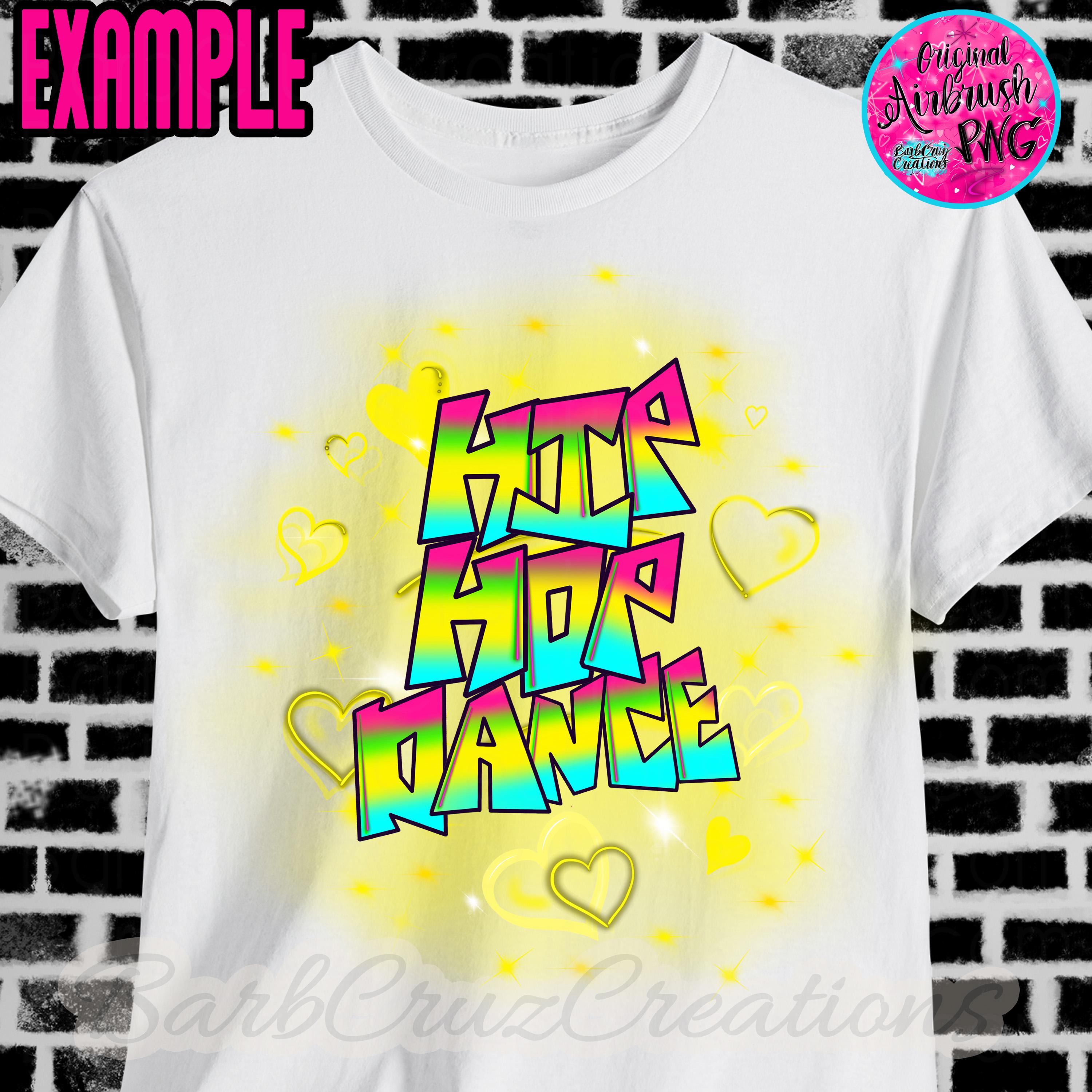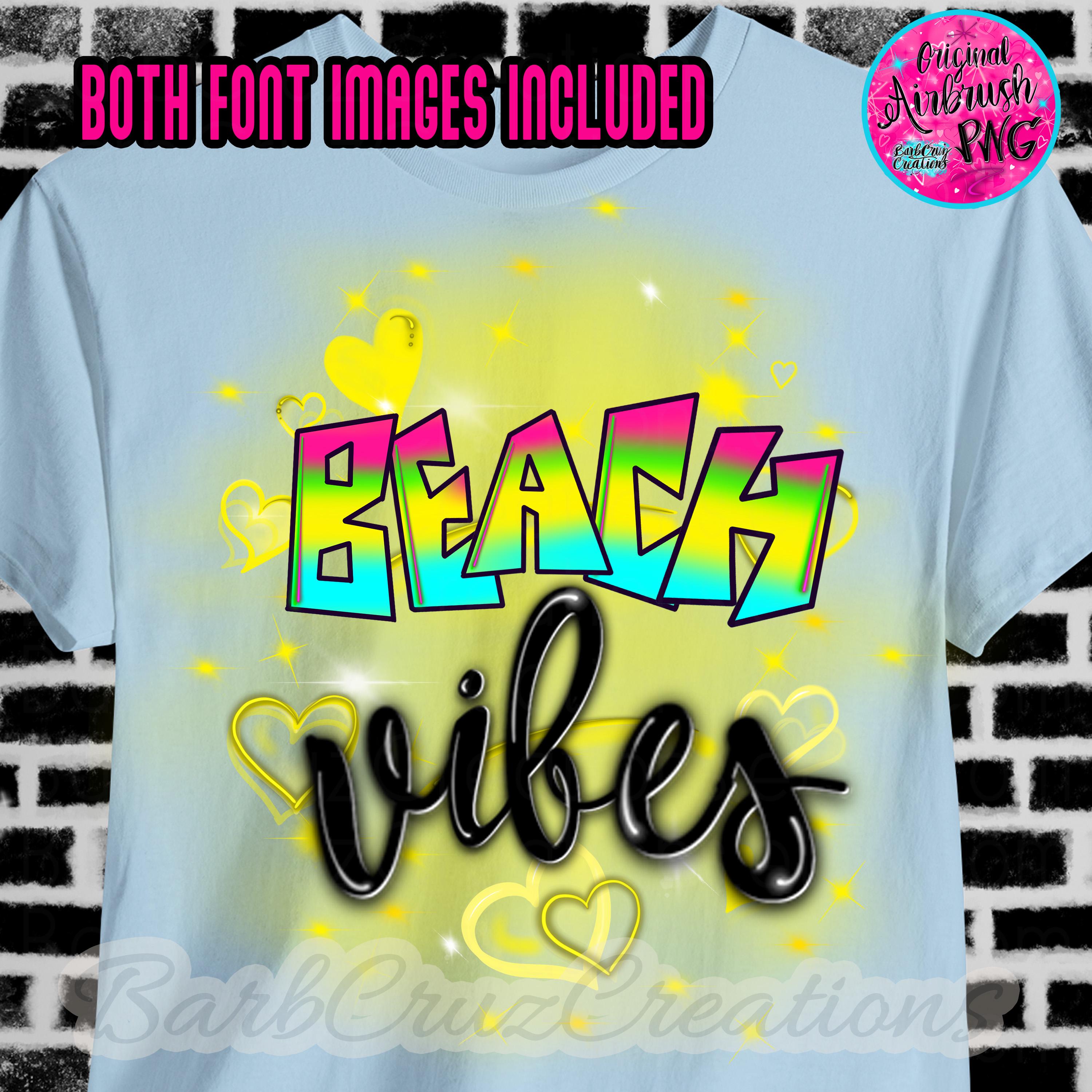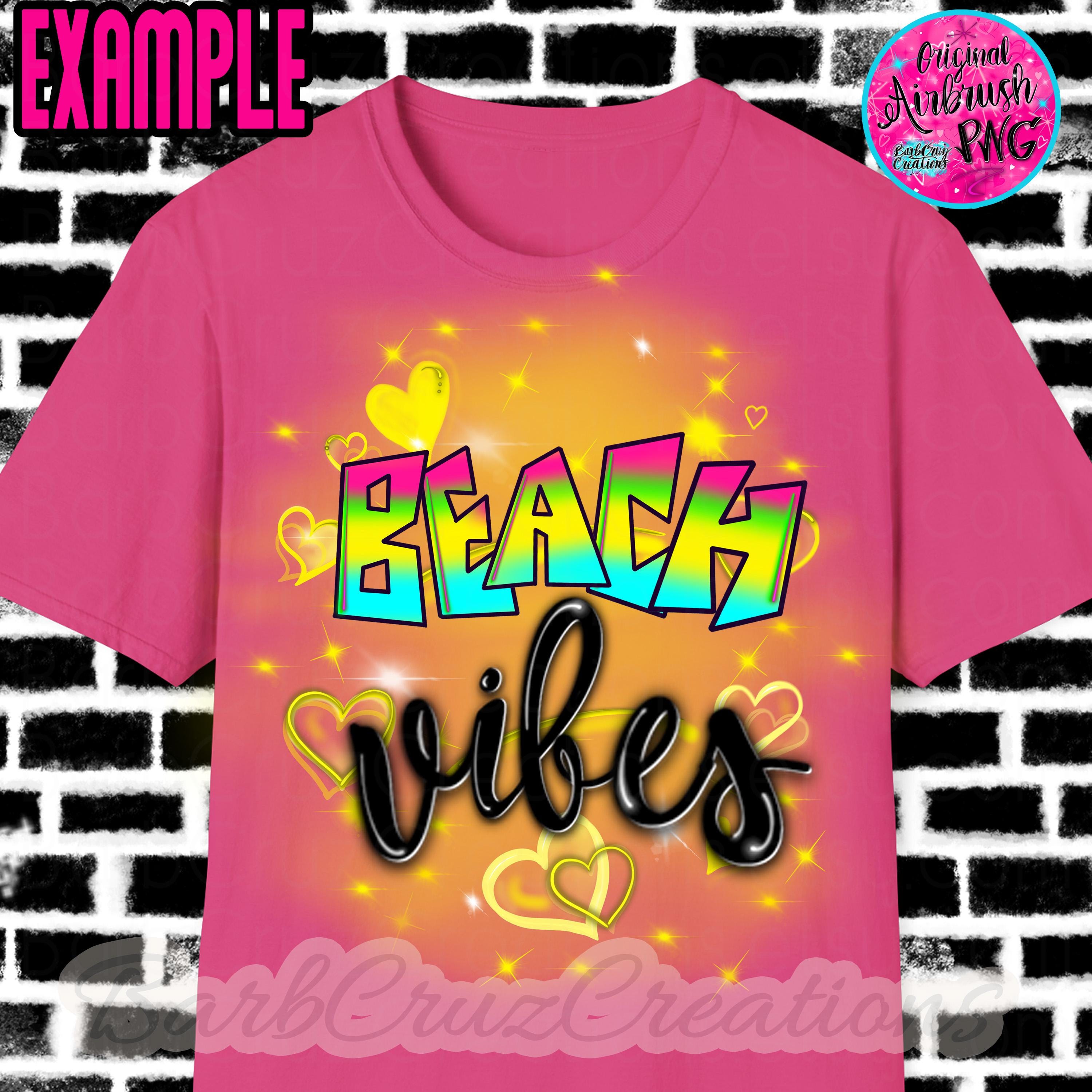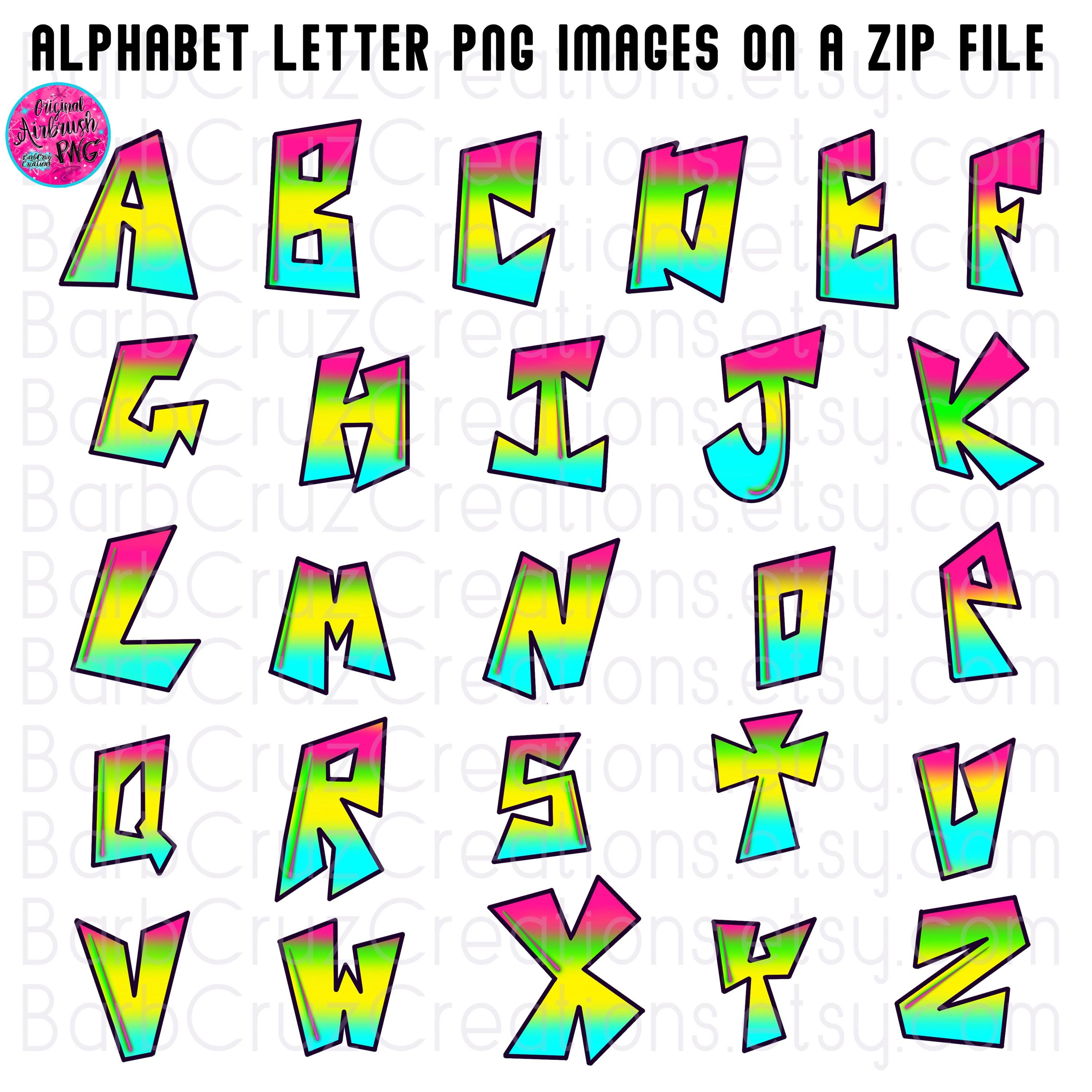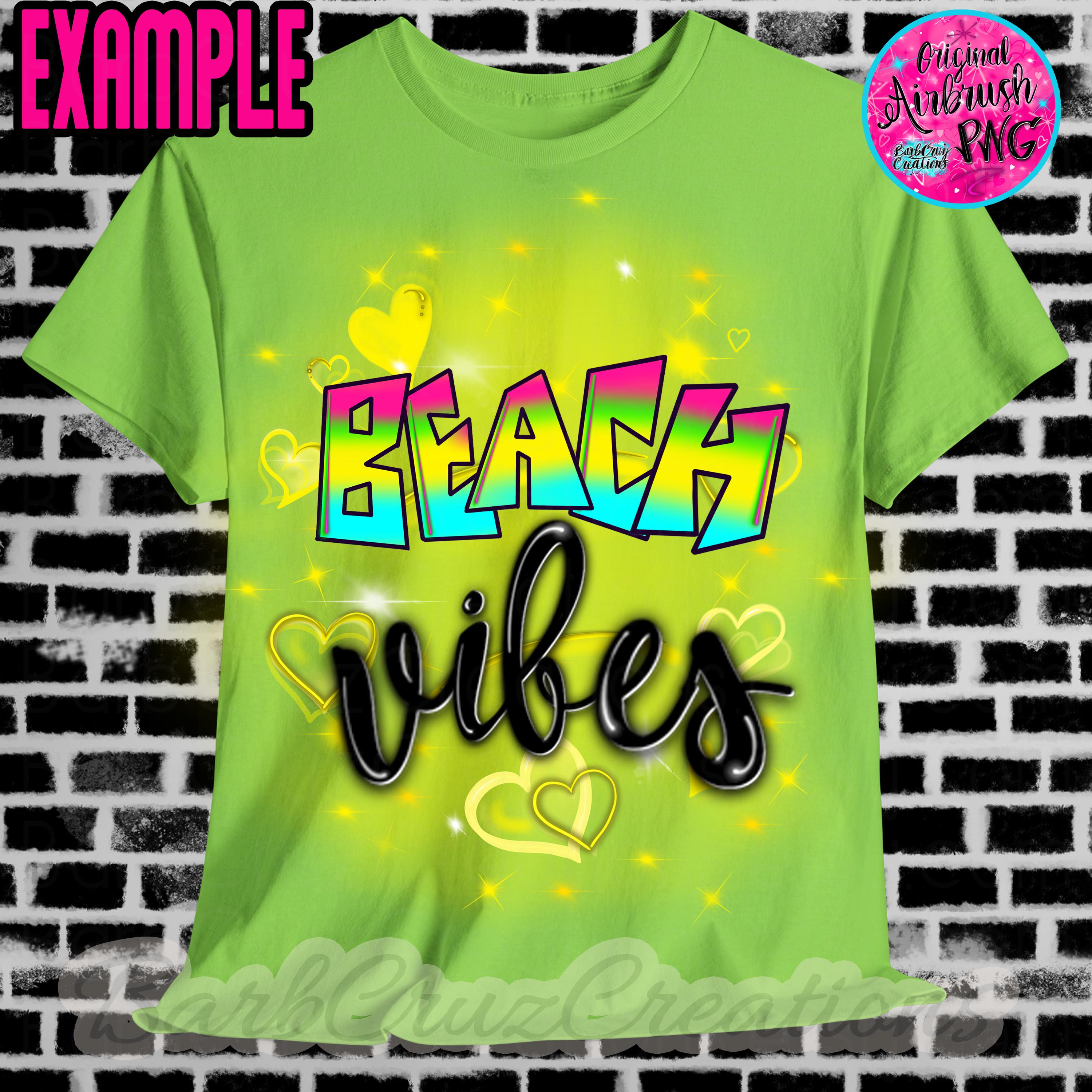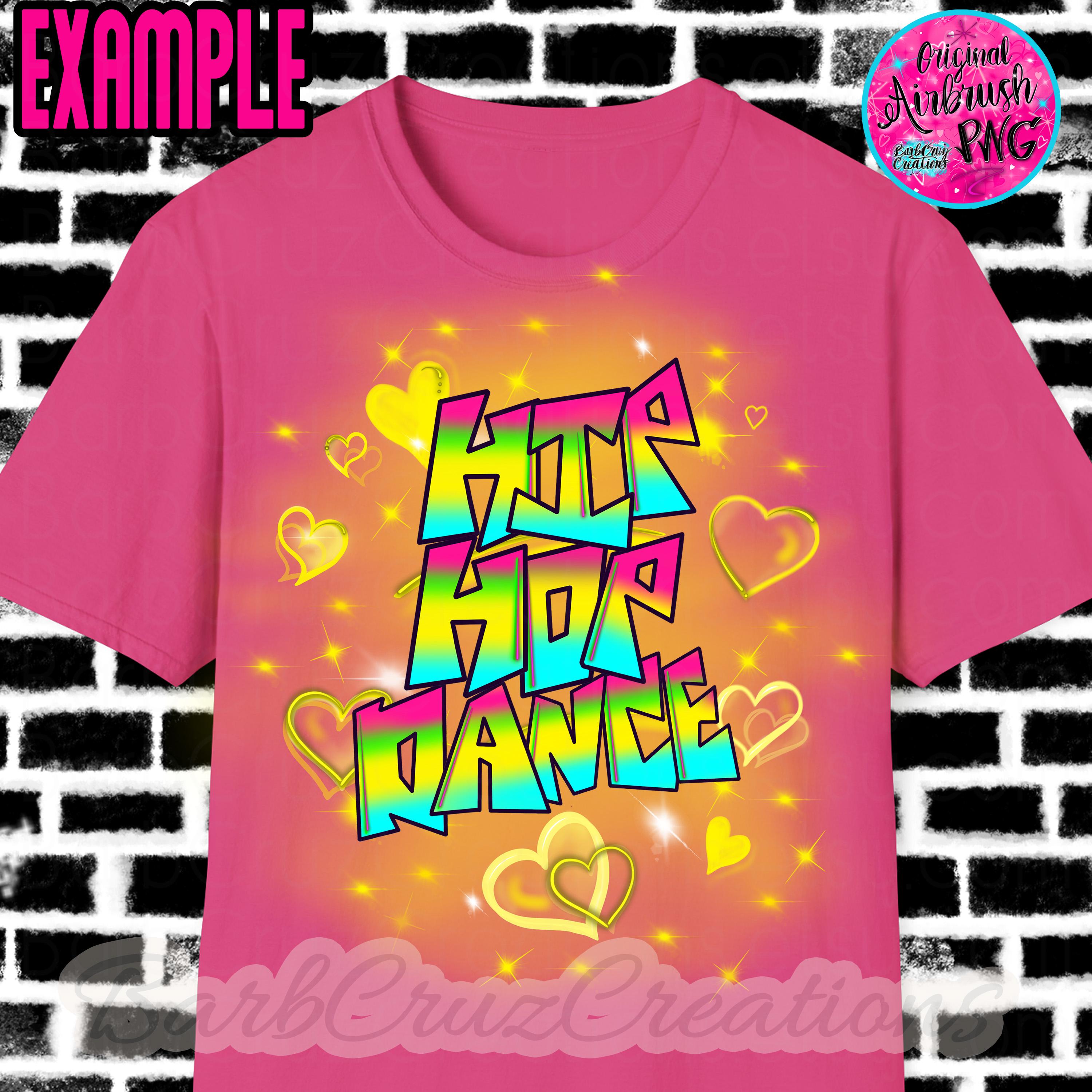
Airbrush Graffiti Font Letters, 90s, Hip Hop, Y2K style, Cursive, Alphabet Font images, Sublimation, Letter Image, 2000s, Dance, B2S, Bundle
Update ~ Now Both Colorful Boxy & Black Cursive Font Images Included - Airbrush Alphabet Letter Images on a zip file as png's
*You are purchasing the whole Alphabet Letters as individual images in a Zip files in png format. Create your words by adjusting/aligning each letter image next to one another as needed. You can tilt, curve, enlarge, or make smaller for a fun twist.
Add to a background use for airbrush monogram, a personal message, name, image to make a custom design in your design program.
Watercolor & Airbrush Images are transparent in some spots and can be layered to achieve darker or brighter images. Use your copy and paste feature for desired brightness.